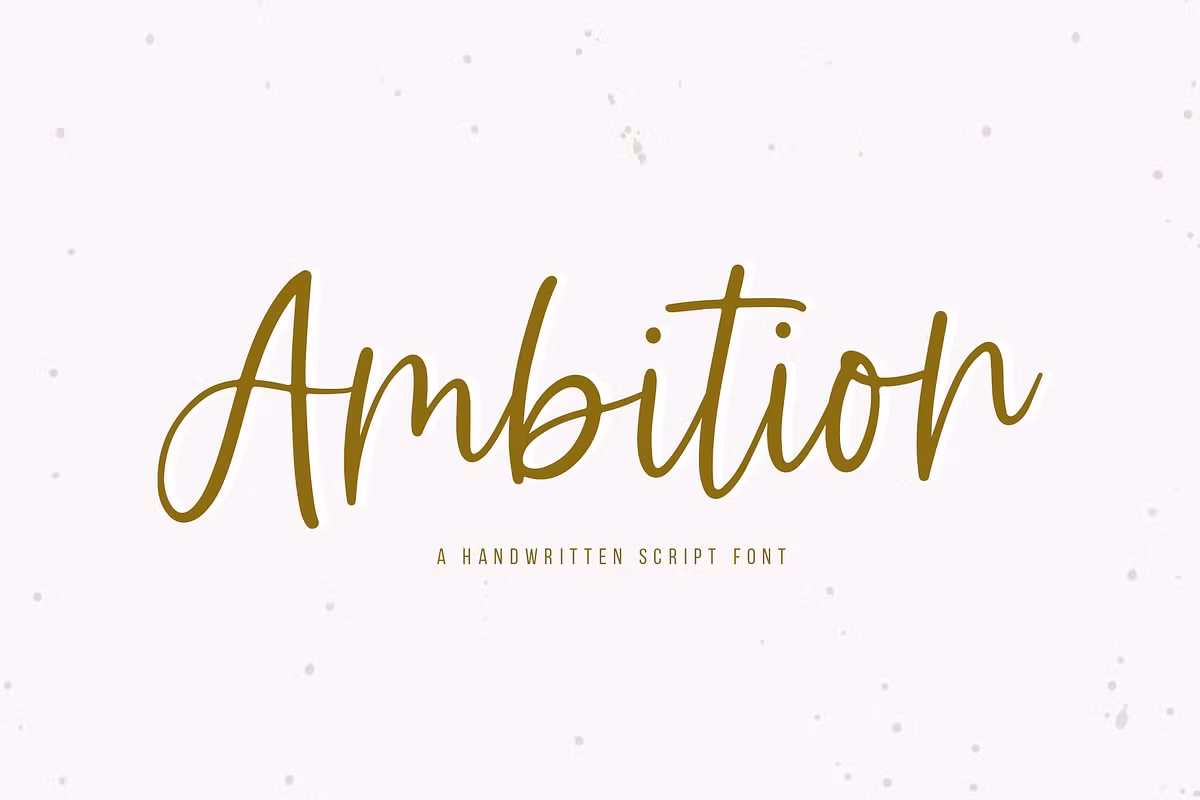
Add a touch of elegance and creativity to your designs with Ambition Handwritten Script Font Free Download — a beautifully crafted handwritten script that captures the power of ambition and the beauty of personal expression. Perfect for branding, quotes, wedding invitations, social media content, and any design that needs a graceful, inspiring touch.
Ambition features flowing strokes and graceful curves that bring a personal and professional flair to your typography. It includes uppercase and lowercase letters, punctuation, numerals, and multilingual support — making it versatile for a wide range of creative projects.